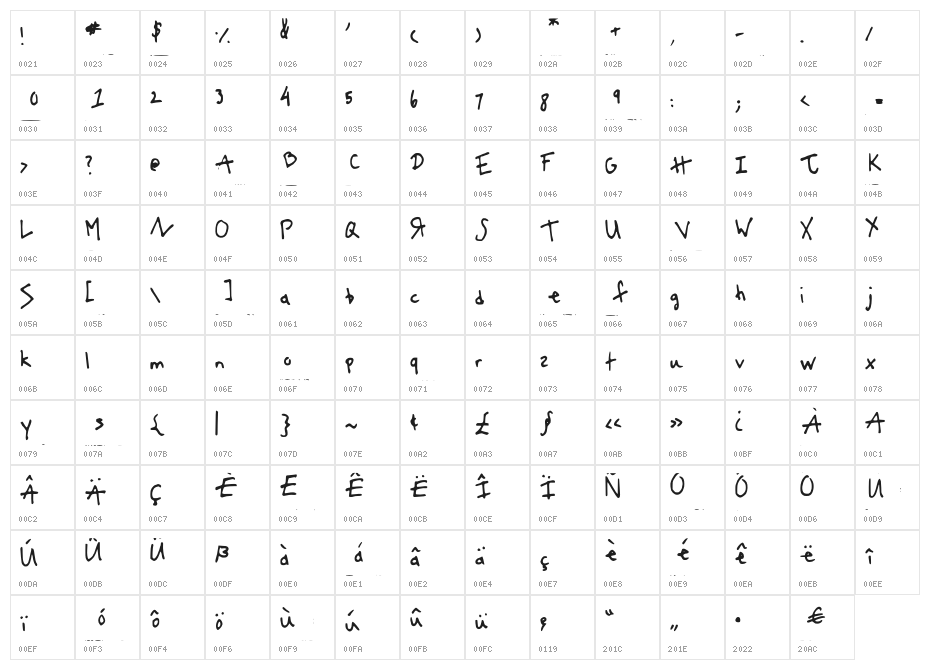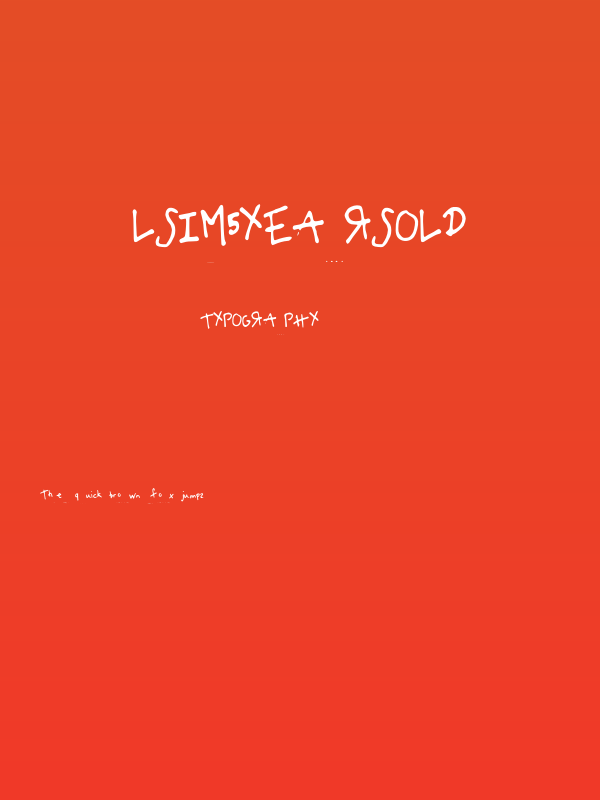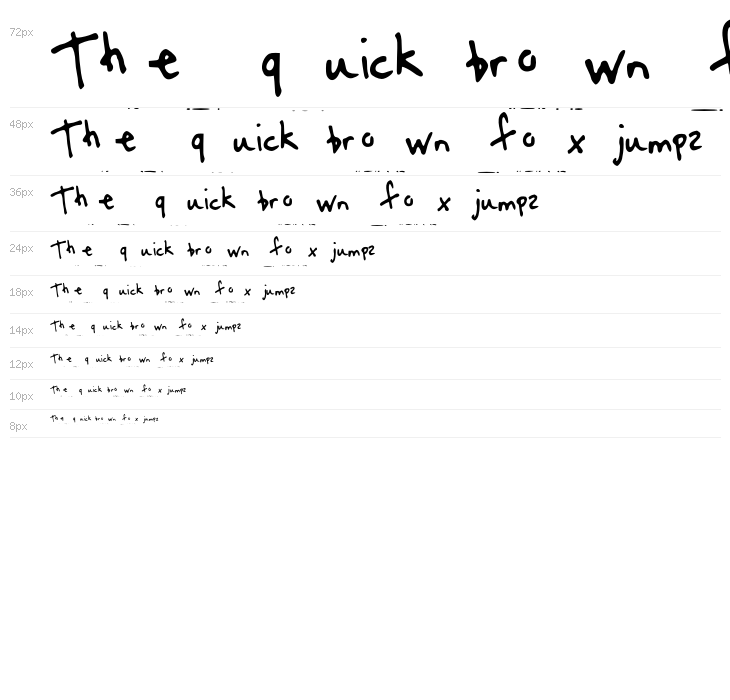
LSIm5YearsOld Font
LSIm5YearsOld Description
This font exhibits a playful and informal handwritten style, characterized by uneven strokes and a casual appearance. The letters are slightly irregular, giving it a whimsical and childlike charm. The uppercase and lowercase letters maintain a consistent style, with a noticeable tilt and varying stroke thickness. Numbers and special characters follow the same informal design, adding to the overall cohesive look. The font's organic feel makes it suitable for projects that require a personal touch or a sense of spontaneity.
| Overall Style | Casual |
| Use Case | Headlines, Informal text, Creative projects |
| Proposed Projects | Ideal for children's books, greeting cards, casual invitations, and playful branding. |